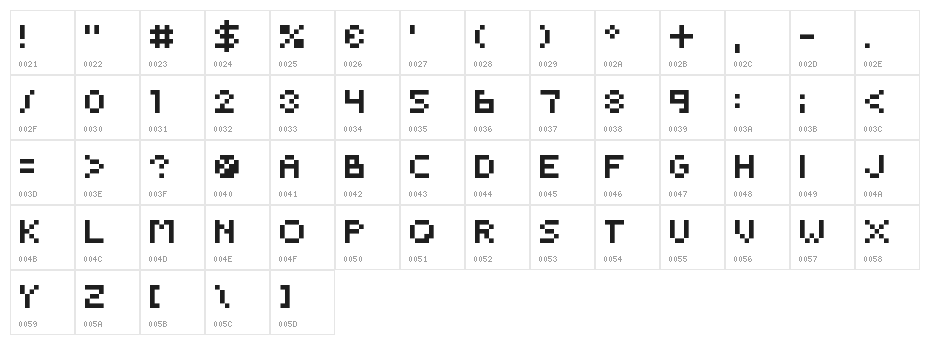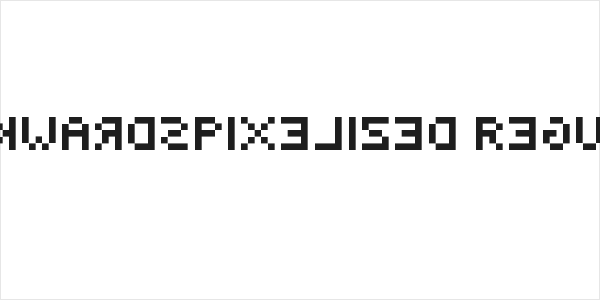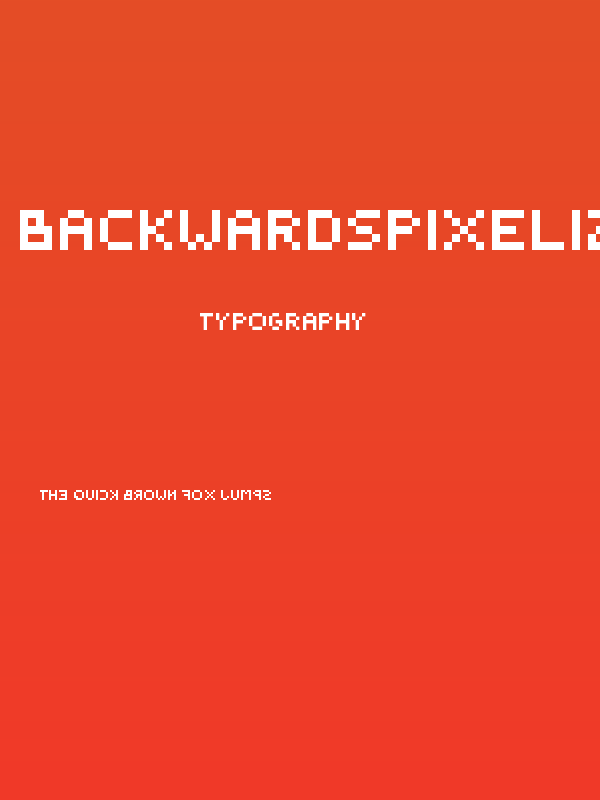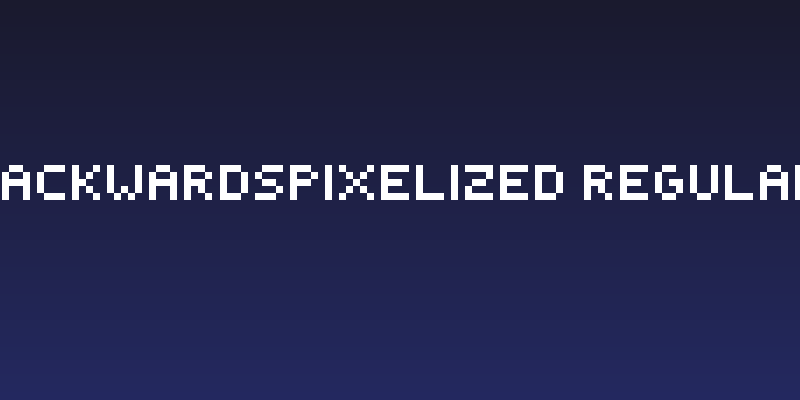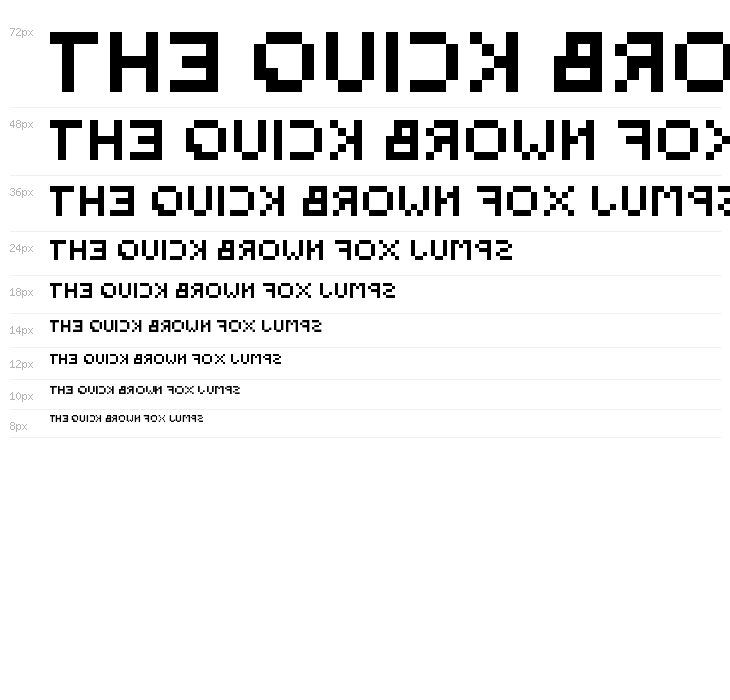
BackwardsPixelized Regular Font
BackwardsPixelized Regular Description
This font features a distinct pixelated style, reminiscent of early digital displays and retro video games. Each character is constructed with a grid-like precision, creating a blocky, geometric appearance. The uniformity in height and width across all characters gives it a monospaced feel, although it maintains a playful and decorative edge. The uppercase and lowercase letters are clearly defined, with sharp angles and straight lines dominating the design. Numbers and special characters follow the same pixelated pattern, ensuring consistency throughout. This font's nostalgic aesthetic makes it ideal for projects seeking a vintage digital look.
| Use Case | Logos, Headlines, Digital Art |
| Proposed Projects | Ideal for video game design, retro-themed posters, digital art projects, and any creative work that requires a nostalgic digital aesthetic. |